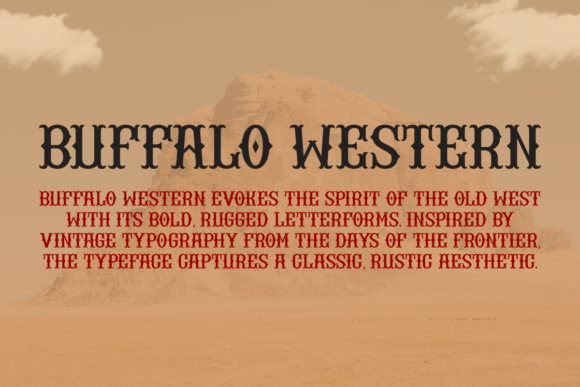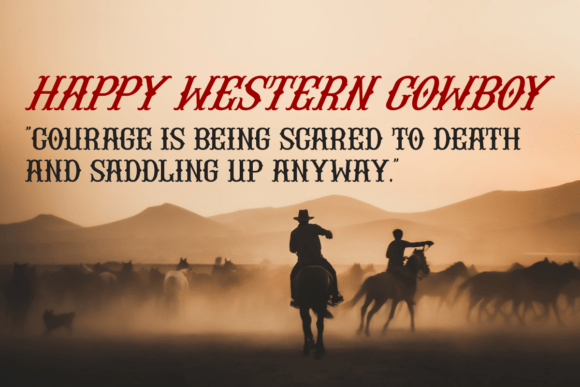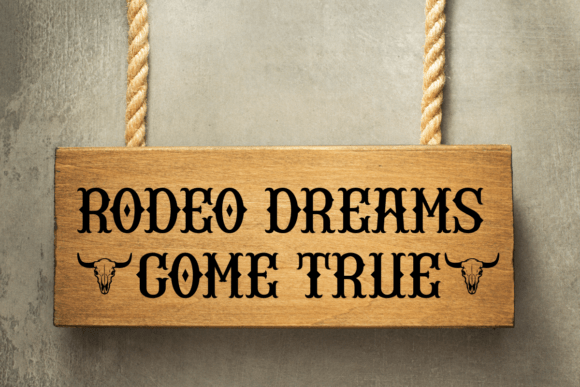
Buffalo Western Font
Introducing Buffalo Western, a bold and authentic vintage western font inspired by the spirit of the Wild West! With its sharp details, ornamental touches, and rugged charm, this font is perfect for bringing that classic cowboy vibe into your creative projects.Whether you’re designing logos, posters, apparel, signage, or crafting projects, Buffalo Western adds a powerful and nostalgic western feel. It’s an ideal choice for vintage-themed designs, rustic branding, rodeo flyers, saloon signage, and more.Let your creativity run wild and bring the legendary spirit of the old West to life with Buffalo Western!